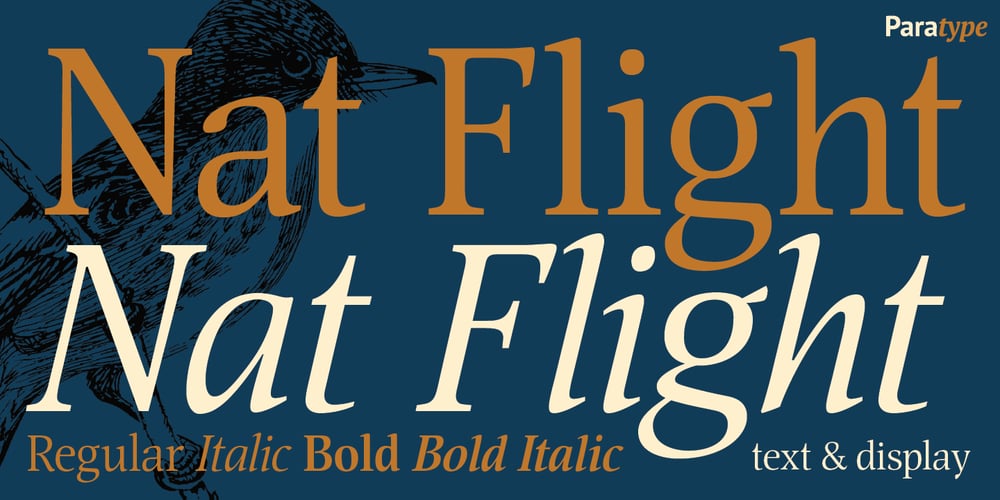
Nat Flight Font Family was designed by Natalia Vasilyeva and published by ParaType. Nat Flight contains 4 styles and family package options. This elegant family of fonts, suitable for both text and display, is narrow in fit and characterized by a unique feature: in the capital B, P, and R, the stroke of the bowl does not quite meet with the stem. The design is noticeably calligraphic with a dynamic and delicate character, especially in the italics. Its subtleties can best be appreciated when set in large point sizes.